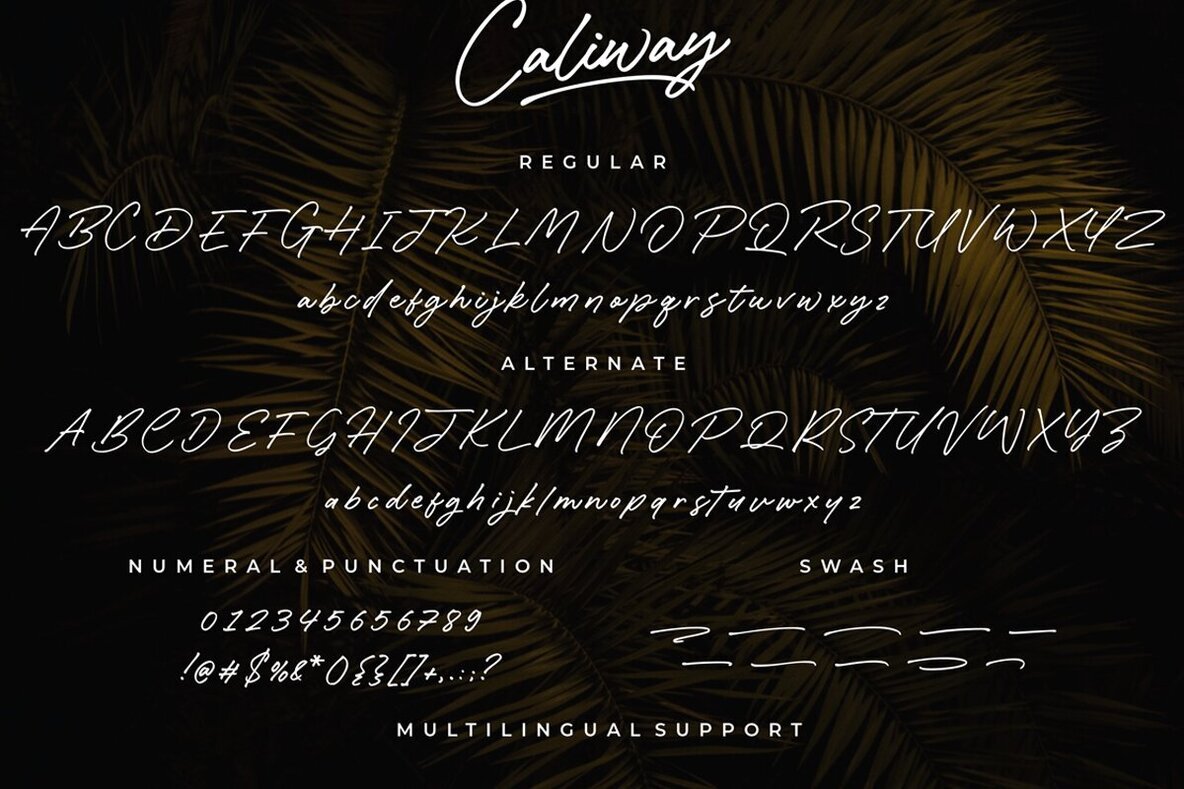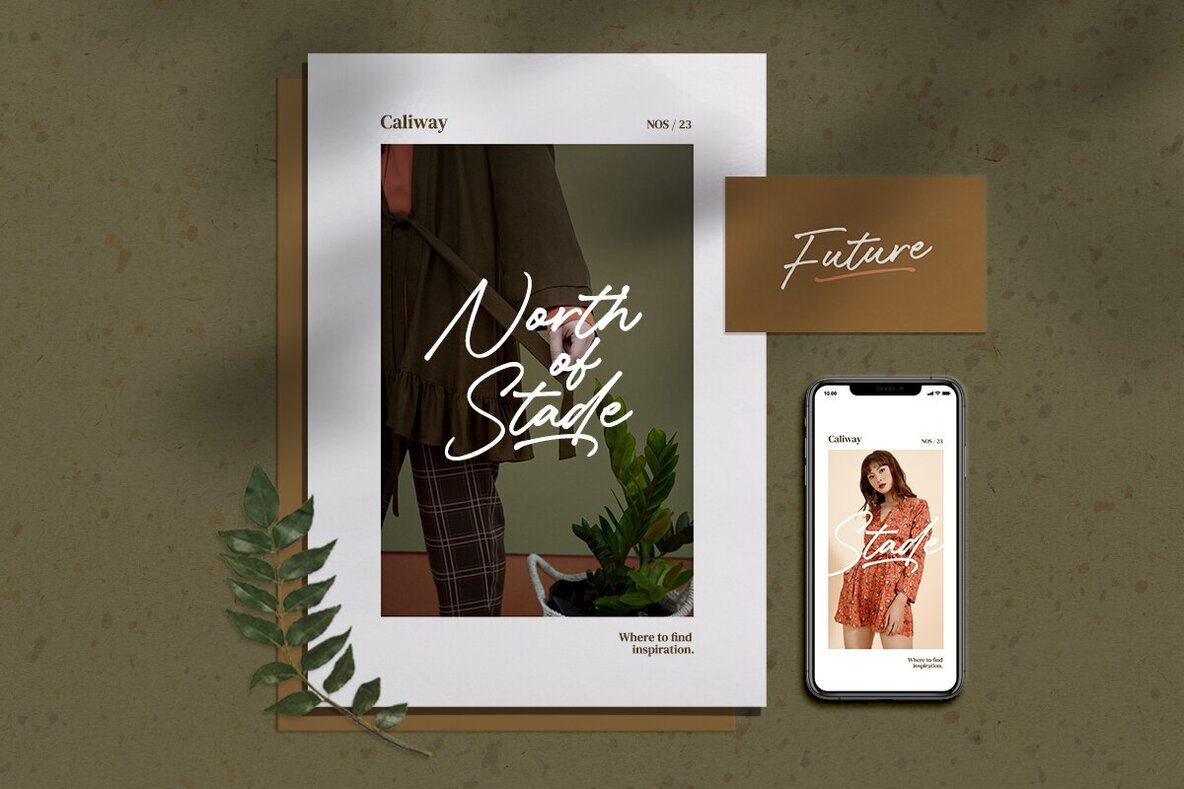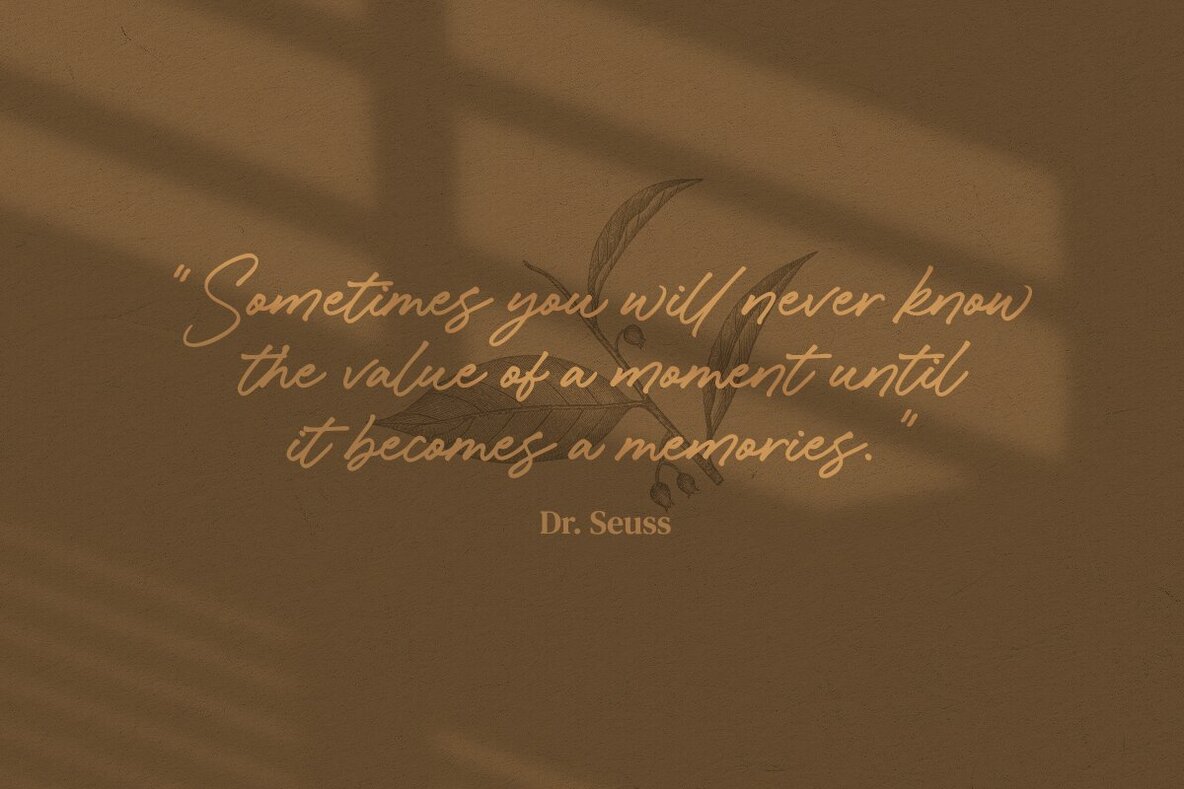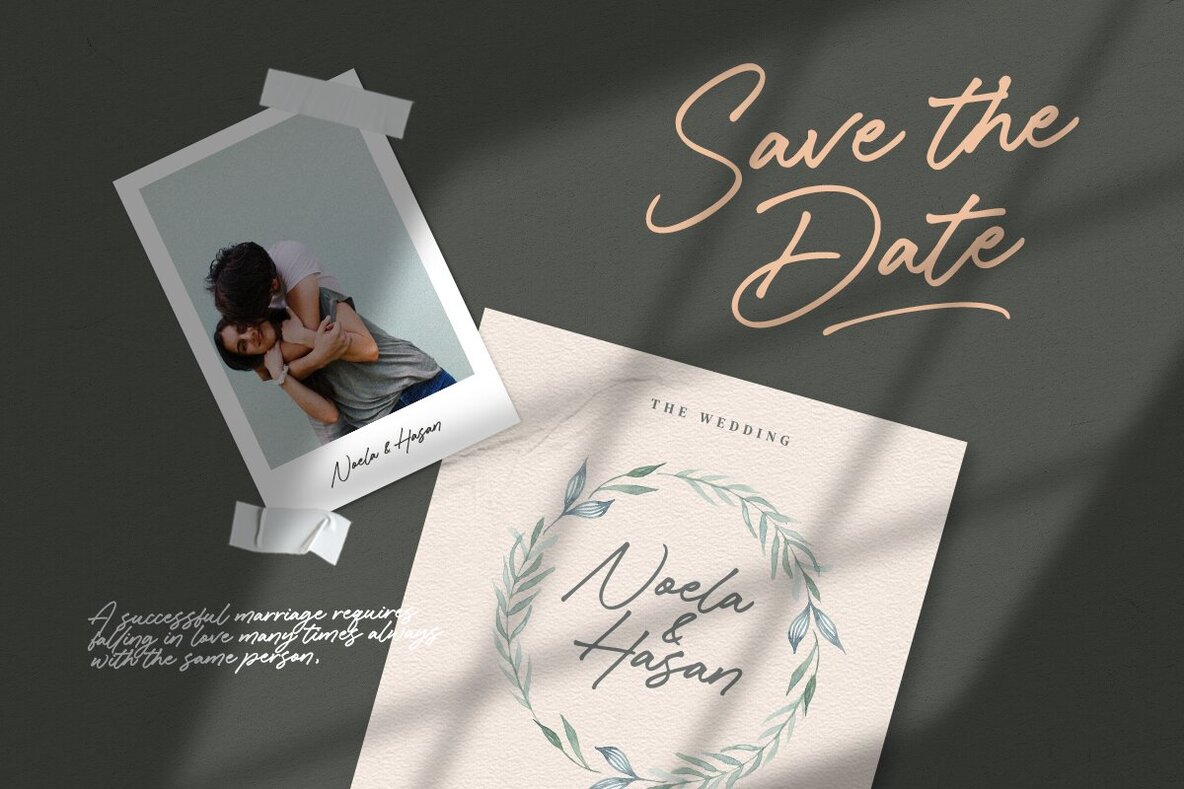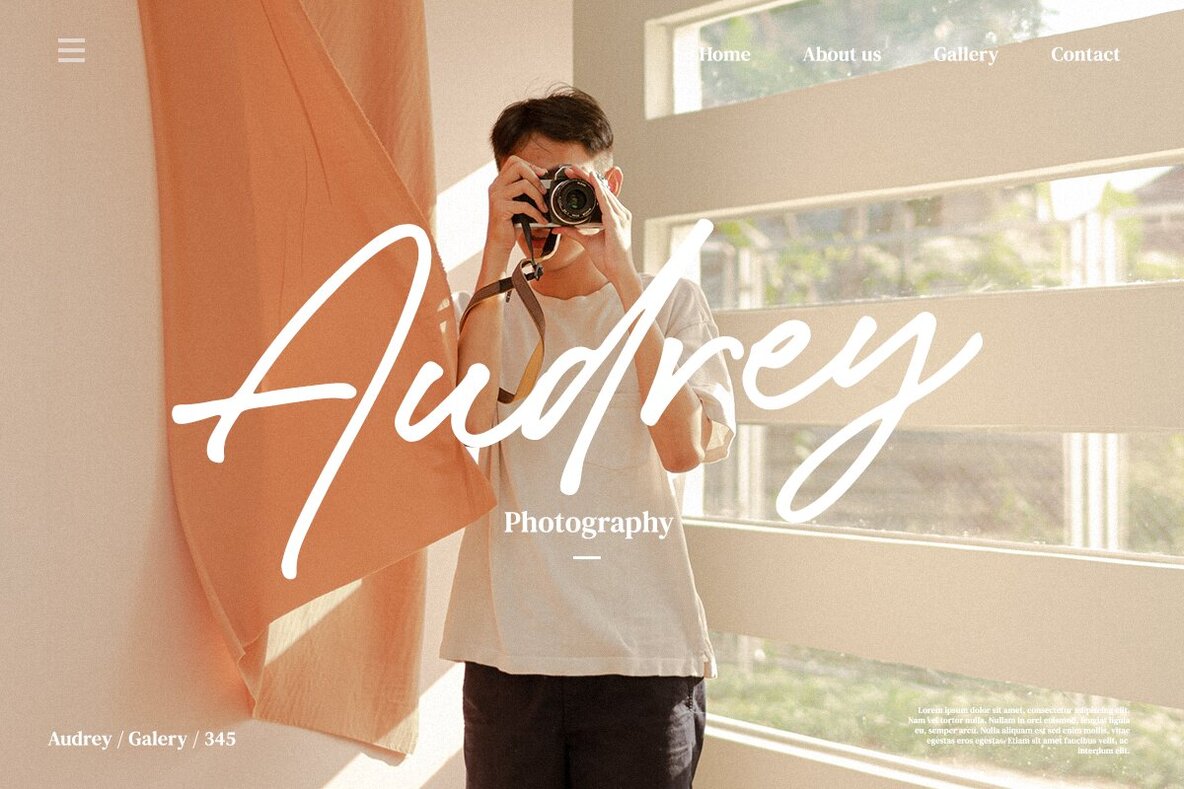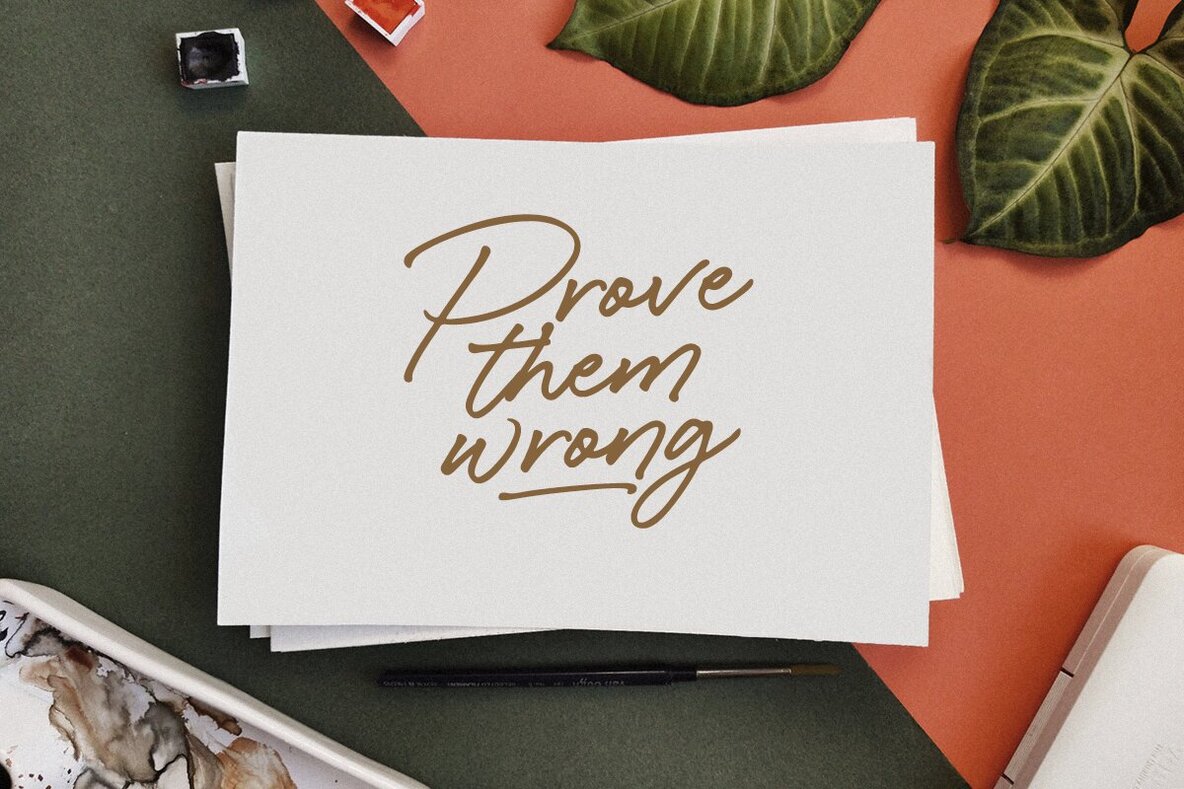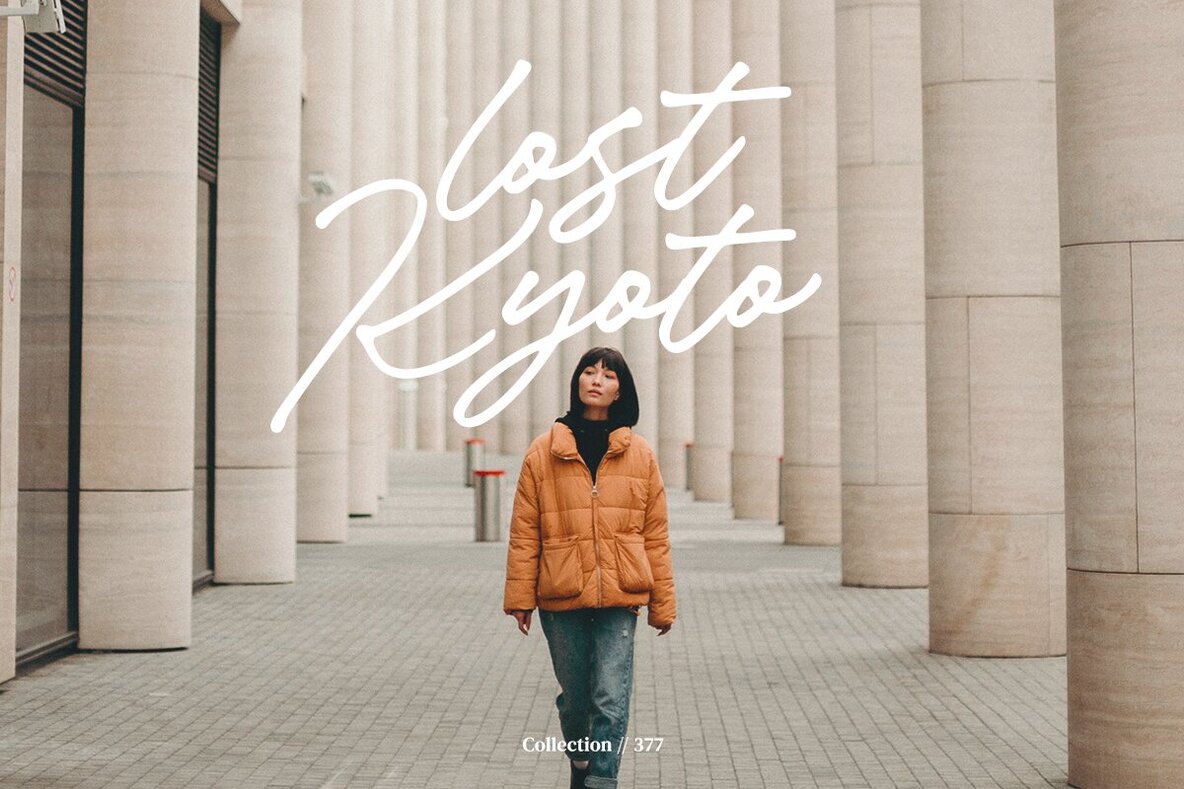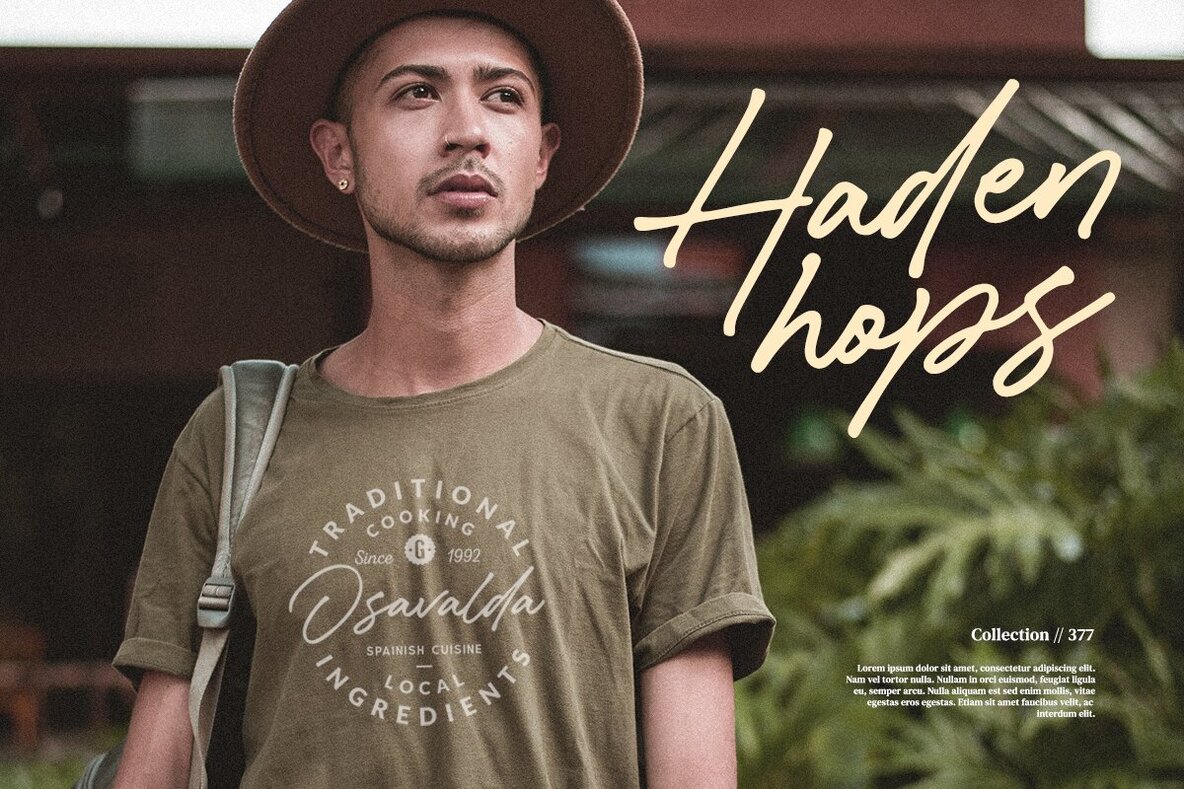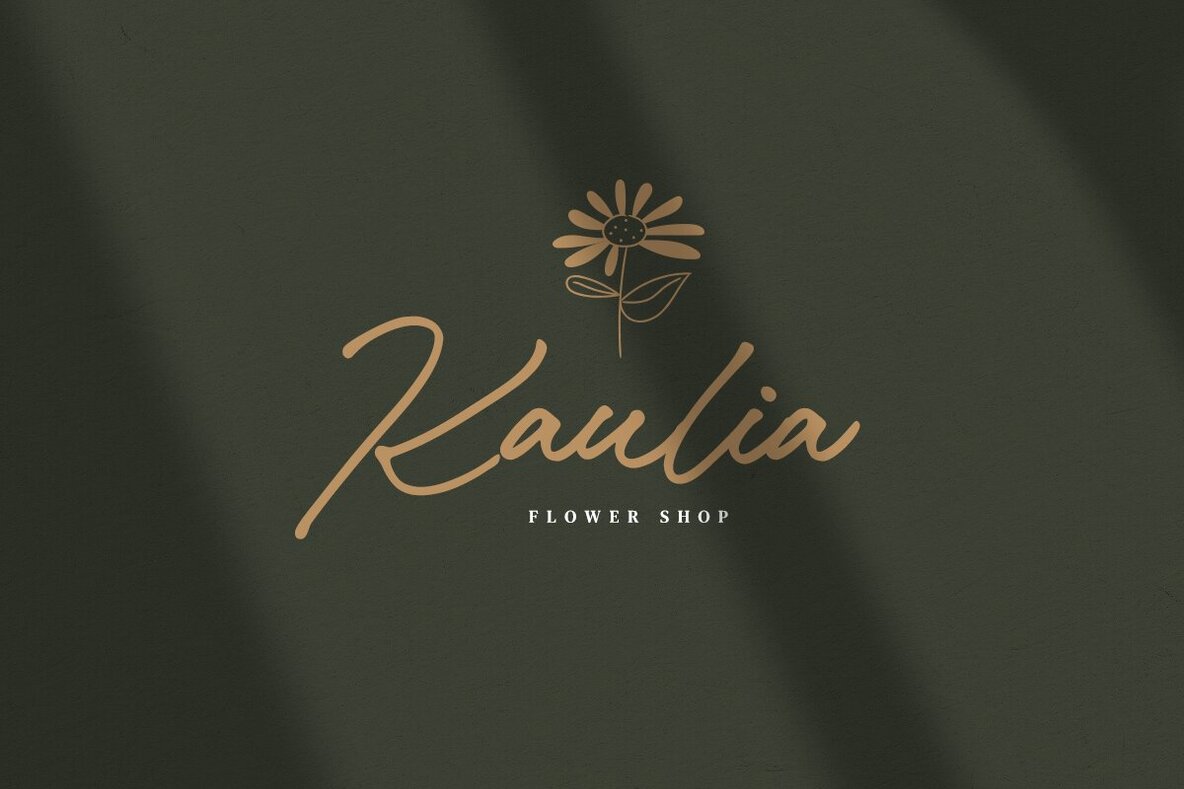
Caliway Font
Caliway embodies simplicity, elegance, and warmth. This casual font beautifully complements various needs such as social media, T-shirts, signature logos, branding, merchandise, ads, book titles, and packaging.Caliway: A Simple and Elegant Font